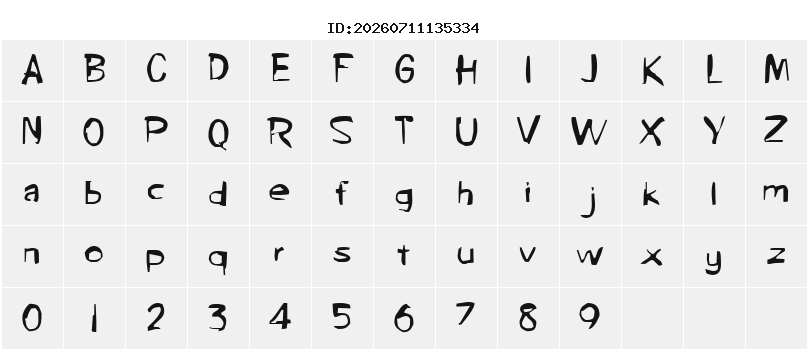
• Font Name: Marilen
About Marilen.ttf
Marilen.ttf is a modern, elegant sans-serif font designed for ultimate readability and visual harmony. Perfect for branding, headlines, web design, and print materials.